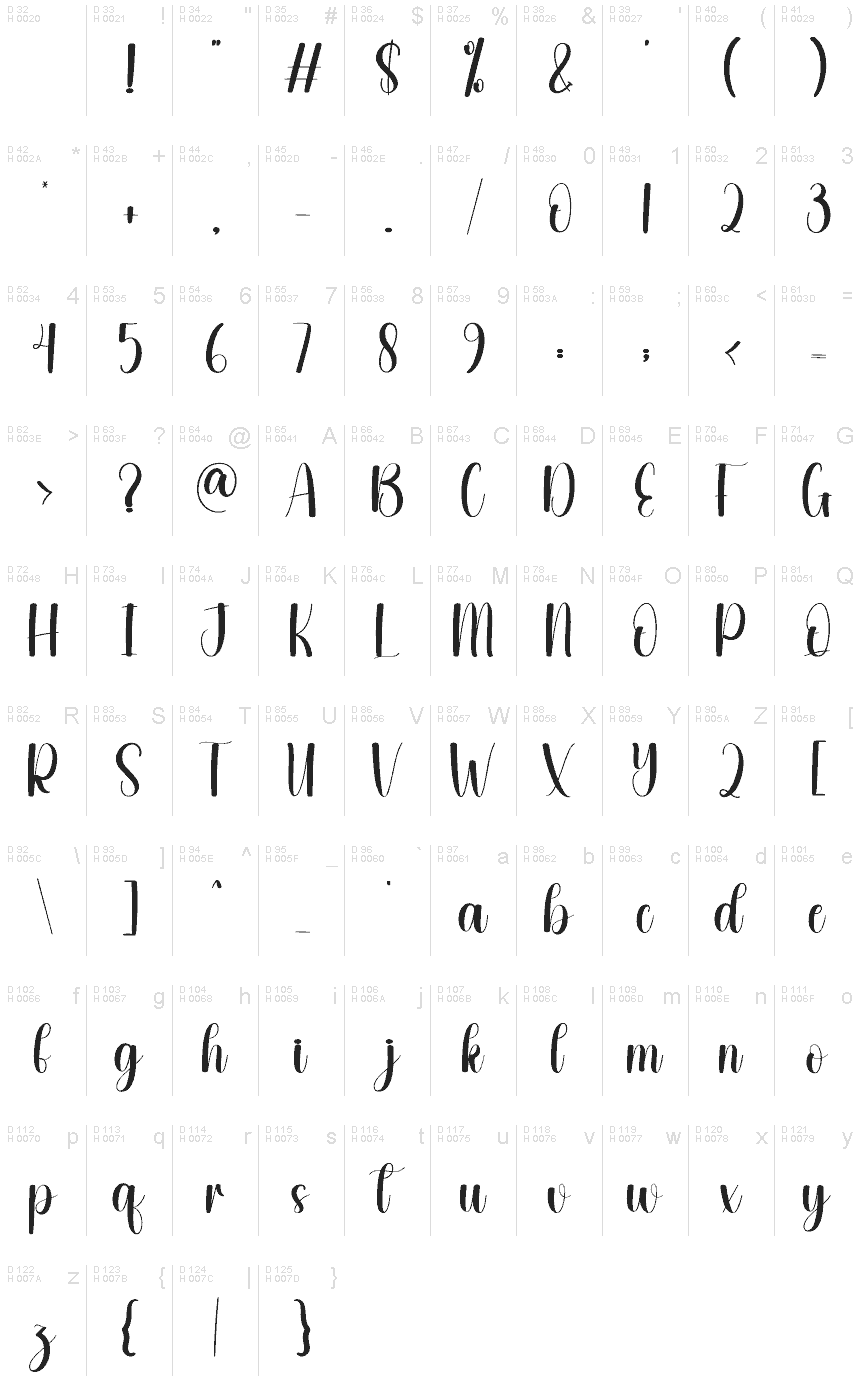
Plunge
Plunge font, a creation of Andi Moz, is a free handwritten font that elegantly captures the essence of modern aesthetics. With its stylish flair and seamless flow, Plunge provides a graceful touch that’s perfect for various projects seeking an authentic and personal feel.
Ideal for events invitations, greeting cards, wedding branding, product packaging, and more. It can also shine in stationery designs and social media posts as well as in creating eye-catching quotes or logos.